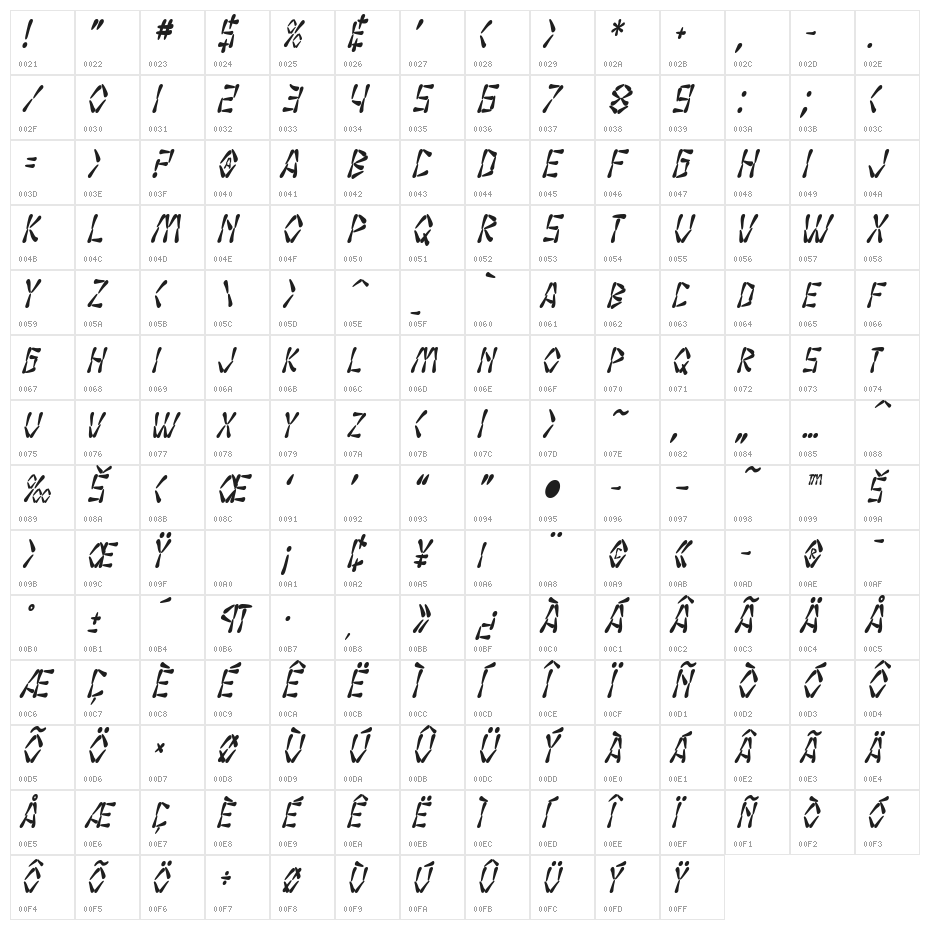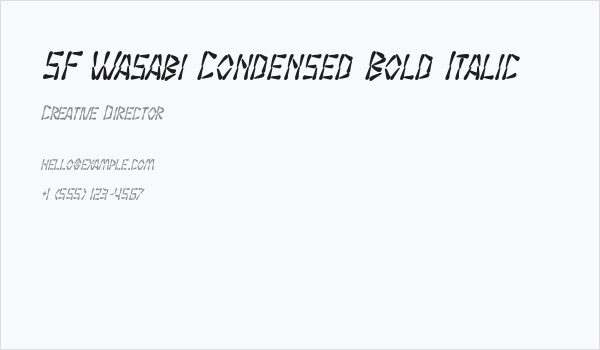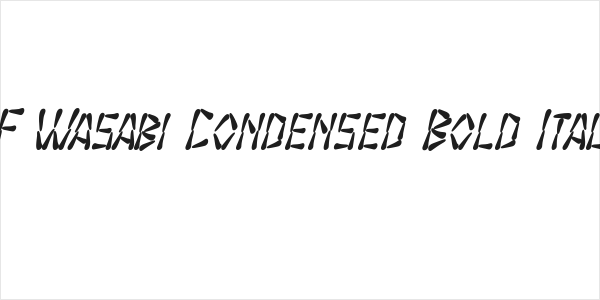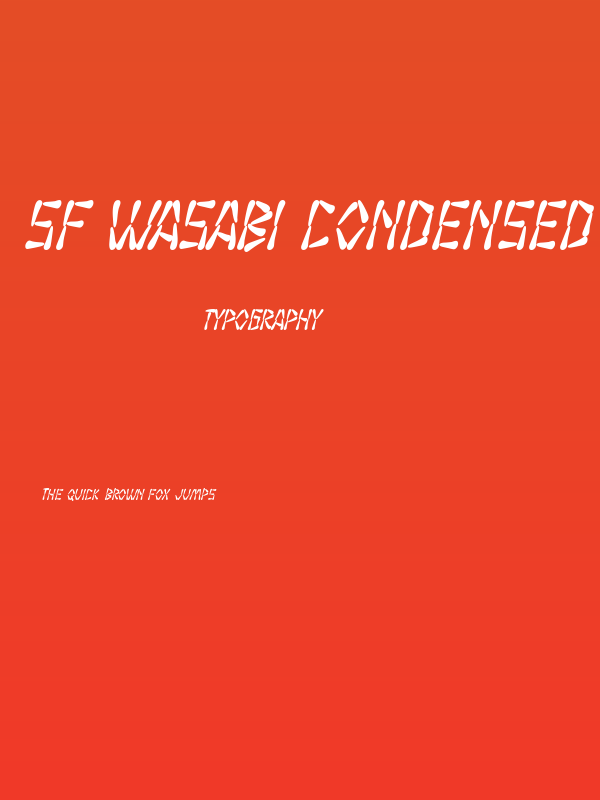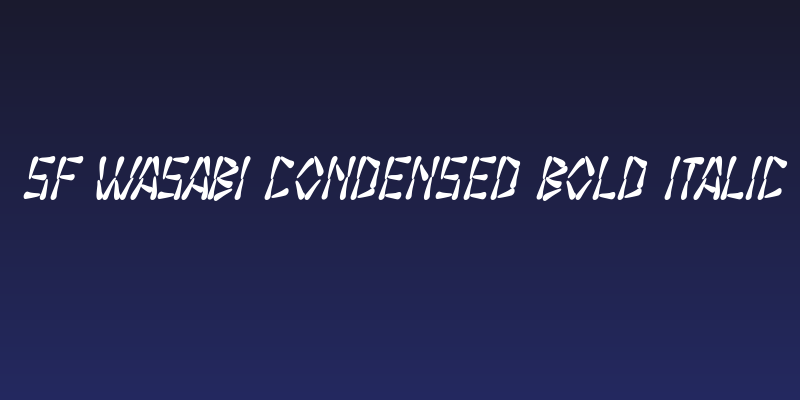
SF Wasabi Condensed Bold Italic Font
SF Wasabi Condensed Bold Italic Description
This font features a bold and italicized style with a condensed width, giving it a dynamic and energetic appearance. The characters are crafted with a brush-like stroke, adding a sense of movement and fluidity. The uppercase and lowercase letters maintain a consistent slant, enhancing the italic effect. The numbers and special characters follow the same stylistic approach, ensuring uniformity across all glyphs. The font's unique design makes it stand out, with each character exhibiting a playful yet structured form. Its boldness and condensed nature make it suitable for impactful and attention-grabbing text.
| Proposed Projects | Ideal for branding, posters, and headlines where a bold and artistic touch is desired. |